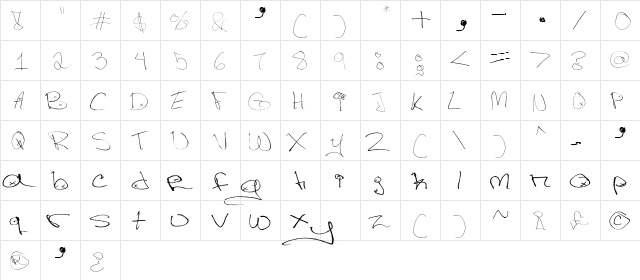
Figge Hand Style Regular
| Foundry | Michael Figge |
| Designer | Michael Figge |
Design Context for Figge Hand Style Typeface
Figge Hand Style flows with the natural rhythm of handwritten lettering, making it ideal for designs that call for warmth and personal expression.
Font Pairing: Combine Figge Hand Style with a simple geometric sans for maximum contrast — the tension between flowing curves and clean structure is a classic typographic pairing.
Pro Tip: Use Figge Hand Style for short runs of text — names, titles, or taglines. Extended body copy in script faces tires the eye quickly.